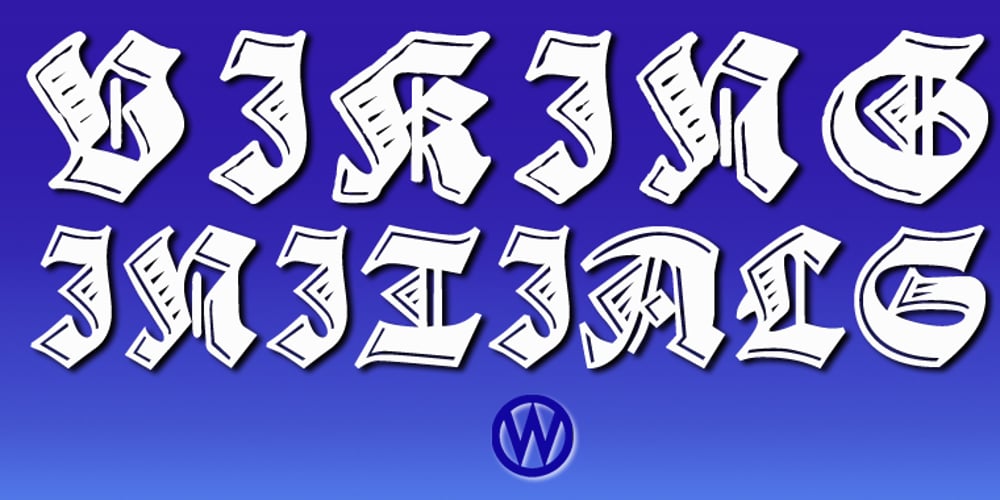
Viking Initials
Viking Initials font
Viking Initials Font Family was designed by Gert Wiescher and published by Wiescher Design. Viking Initials contains 1 styles and family package options. Viking Initials are pure brute-force blackletter initials of the time just before the Nazis started to rule, somehow these initials are typical for that period. I made one alphabeth-set with rough edges on the uppercase keys and a second set with sharp edges on the lowercase keys. For you to choose. Your historical designer Gert Wiescher